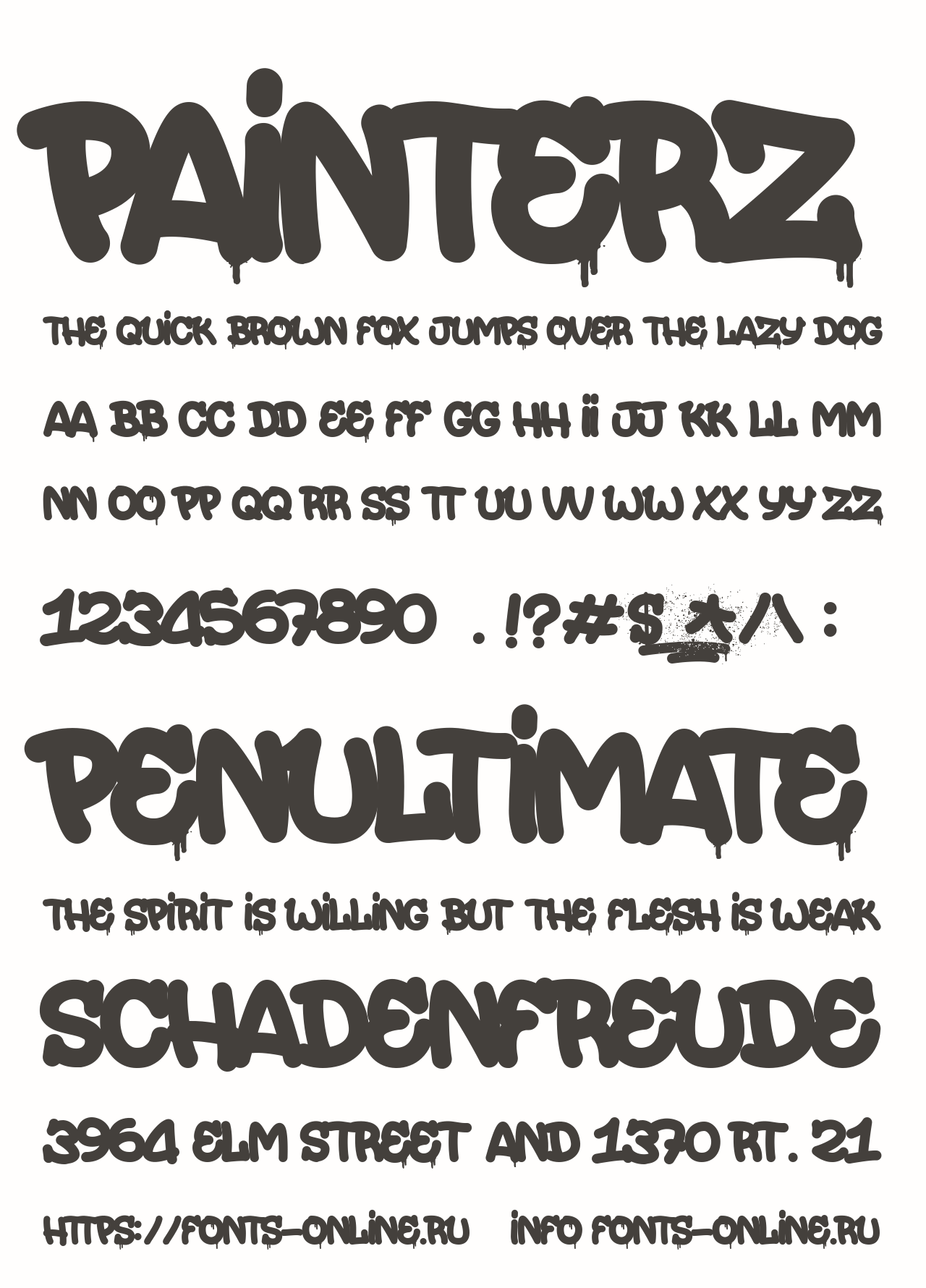
Download free Painterz Regular font Painterz.ttf Font Painterz font download is available free from fontget. Painterz font | designed by qkila | download painterz for windows and mac | category: The painterz font has been downloaded 422,388 times. The typeface contains 2 files and supports 12 languages. For any commercial use you will need to purchase a license. Painterz is a free font for personal use created. Font Painterz.
Graffiti treat font free download Font Painterz For any commercial use you will need to purchase a license. The painterz font has been downloaded 422,388 times. Painterz font | designed by qkila | download painterz for windows and mac | category: This fonts are authors' property, and are either shareware, demo versions or public domain. The typeface contains 2 files and supports 12 languages. Painterz is a. Font Painterz.
Graffiti Font in truetype .ttf opentype .otf format free and easy Font Painterz This fonts are authors' property, and are either shareware, demo versions or public domain. Painterz is a free font for personal use created by qkila. Painterz is a script type font. Painterz font download is available free from fontget. Painterz font | designed by qkila | download painterz for windows and mac | category: Download and install the painterz font. Font Painterz.